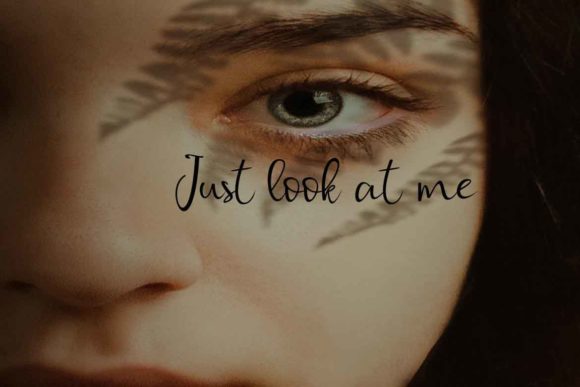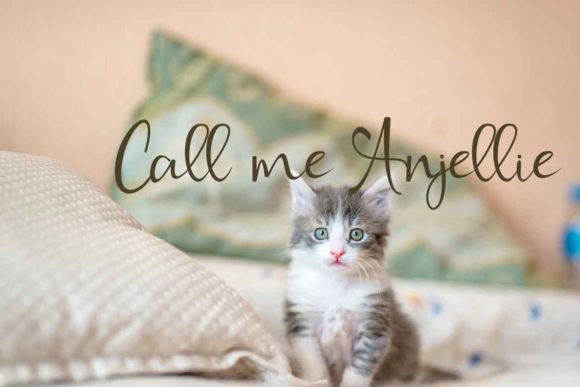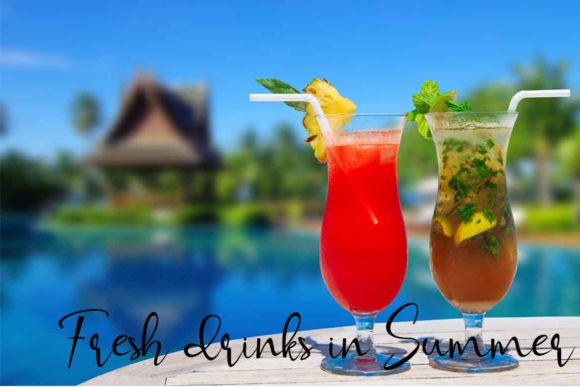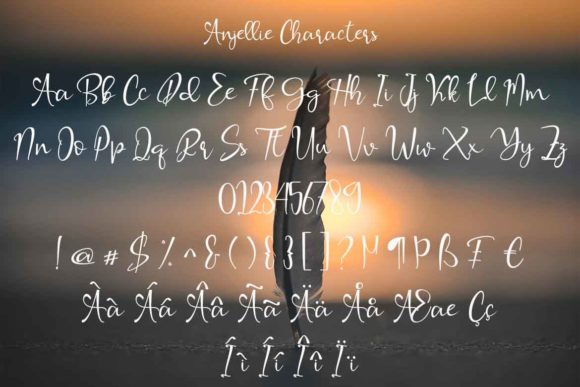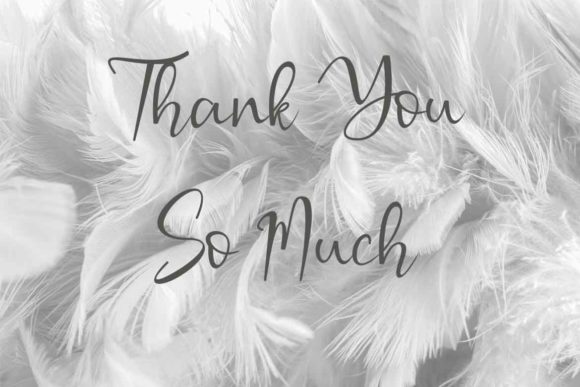
Introducing Anjellie Font: Elevate Your Designs with Elegance and Flair
In the world of typography, few fonts manage to capture the essence of elegance and sophistication as effortlessly as Anjellie. This delicate, elegant, and flowing handwritten font has been making waves among designers and crafters alike, and for good reason. Anjellie’s beautiful and well-balanced characters make it an incredibly versatile addition to any design project, allowing it to seamlessly match a wide pool of designs. Whether you’re working on a branding project, crafting a unique invitation, or simply looking to add a touch of personality to your digital content, Anjellie is sure to bring your most creative ideas to life.
The Characteristics of Anjellie Font
So, what sets Anjellie apart from other fonts? The answer lies in its unique blend of delicacy and elegance. Each character in the Anjellie font is carefully crafted to exude a sense of refinement and sophistication, making it perfect for projects where a high level of professionalism is required. At the same time, its flowing and handwritten nature adds a touch of warmth and personality, allowing designers to create a more personal connection with their audience.
One of the standout features of Anjellie is its exceptional legibility. Even at smaller sizes, the font remains clear and easy to read, making it suitable for use in a variety of applications, from body text to headings and titles. This, combined with its versatility, makes Anjellie an excellent choice for designers looking to create cohesive and visually appealing designs.
Uses of Anjellie Font
Anjellie’s versatility is one of its most significant advantages. This font can be used in a multitude of design projects, including:
• Branding and Logos: Create a lasting impression with a unique and elegant logo that incorporates the Anjellie font.
• Invitations and Stationery: Add a touch of sophistication to your invitations, greeting cards, and other stationery with Anjellie’s beautiful script.
• Digital Content: Elevate your blog posts, social media graphics, and website content with a font that exudes elegance and refinement.
• Crafting and DIY Projects: Use Anjellie to add a personal touch to your crafting and DIY projects, such as handmade cards, scrapbooking, and more.
Why Designers and Crafters Love Anjellie
Anjellie has quickly become a favorite among designers and crafters due to its unique combination of style, versatility, and ease of use. Here are just a few reasons why:
• Easy to Read: Anjellie’s clear and legible characters make it easy to read, even at smaller sizes.
• Highly Versatile: The font’s elegant and flowing script makes it suitable for use in a wide range of design projects.
• Unique and Creative: Anjellie’s delicate and elegant style allows designers to add a touch of personality to their projects.
• Time-Saving: With Anjellie, designers can quickly and easily create professional-looking designs without spending hours on typography.